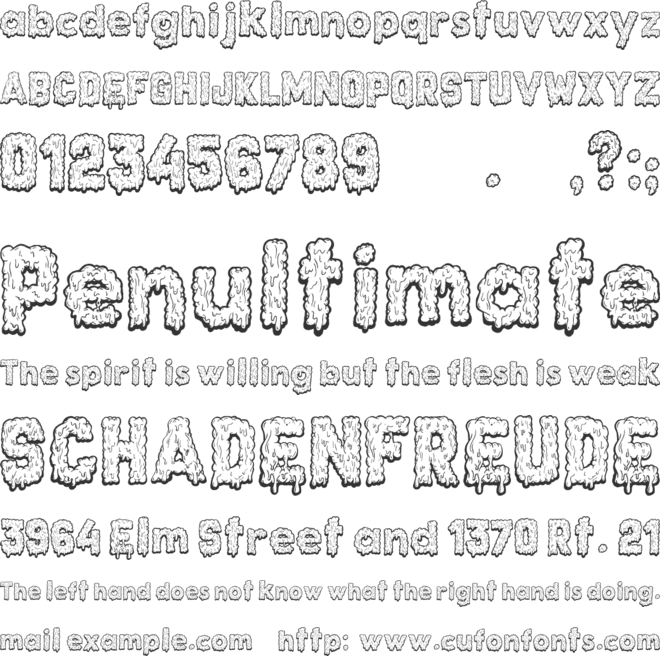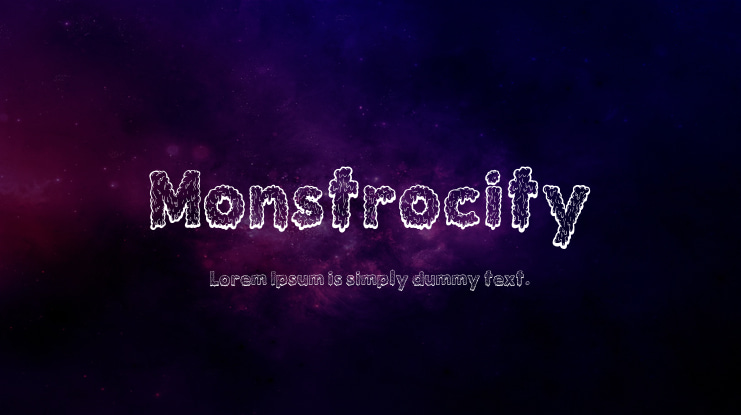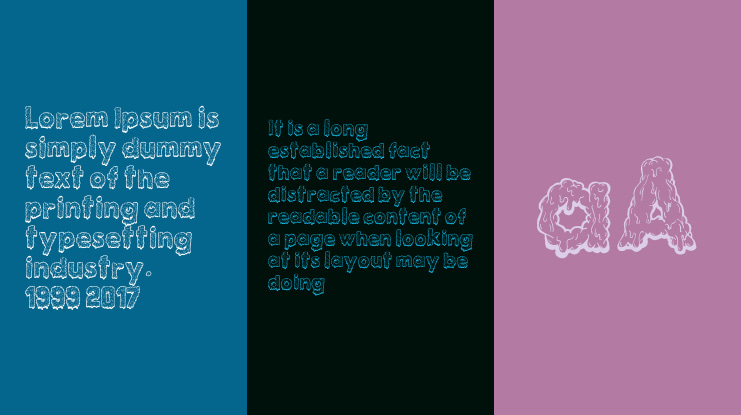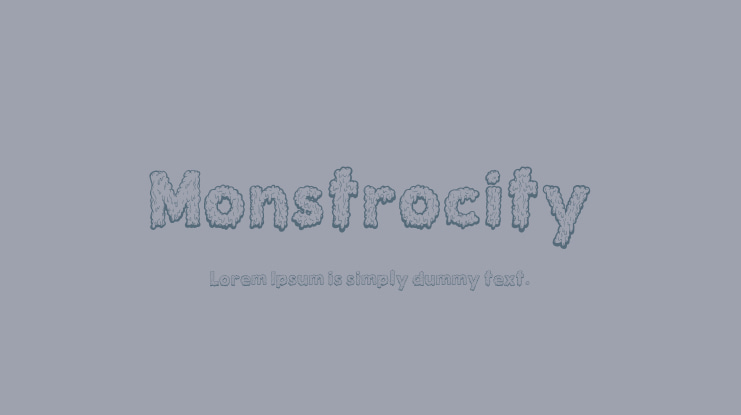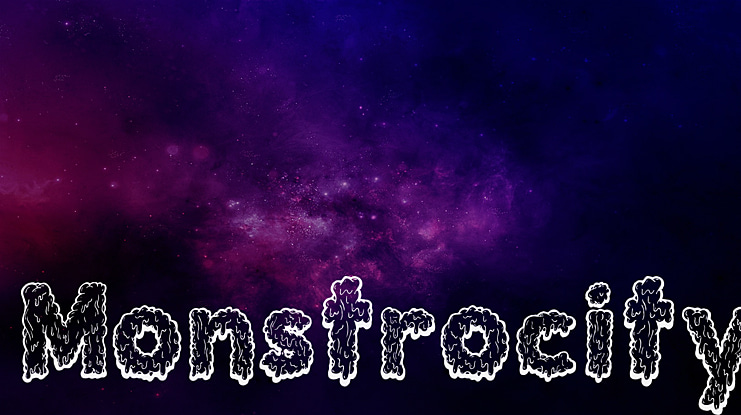
Monstrocity Font
Monstrocity is an illustrated decorative vector font with punctuation and numbers included. It suits best for headlines and other big type. Also single letters can be a nice decorative element. Enjoy creating!